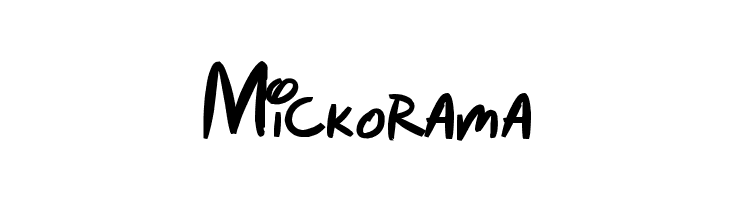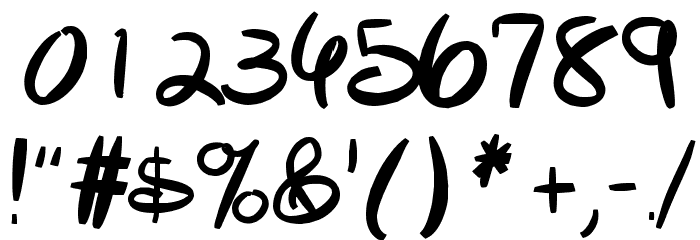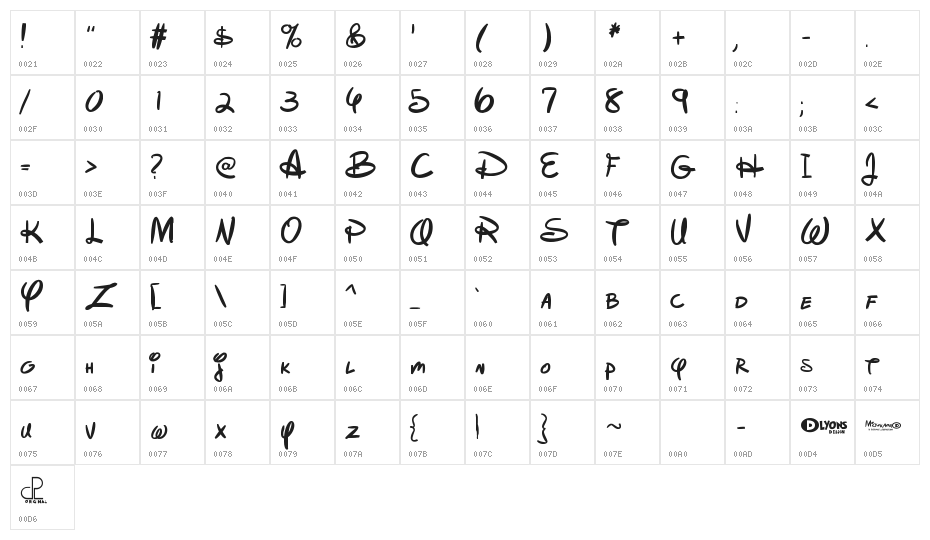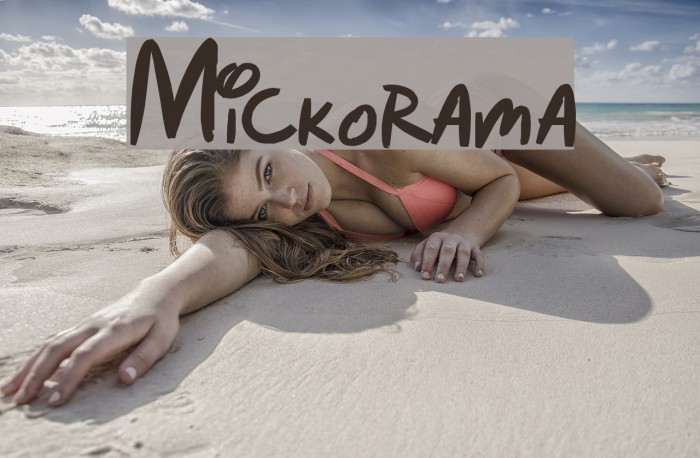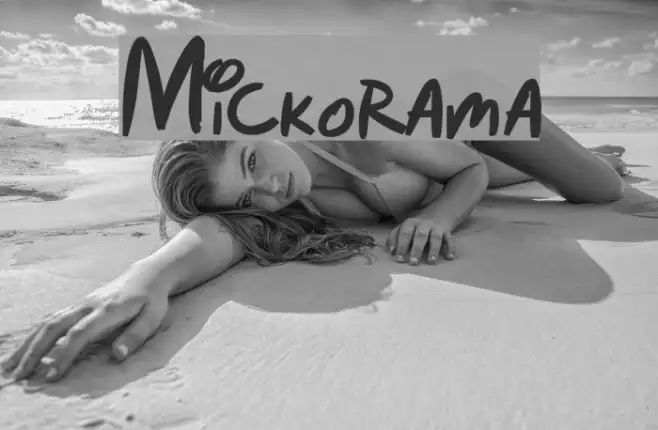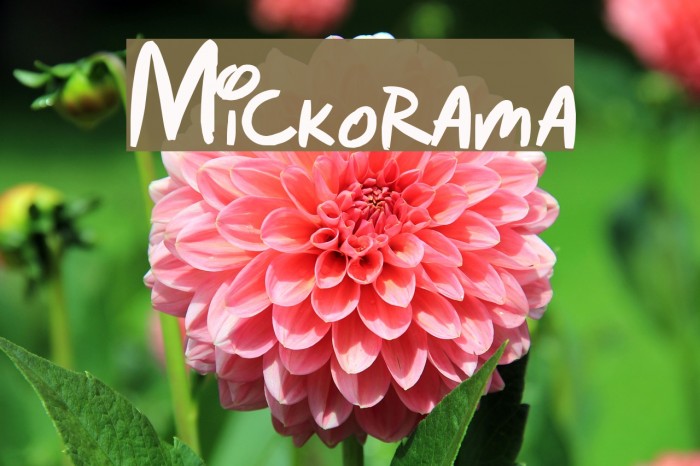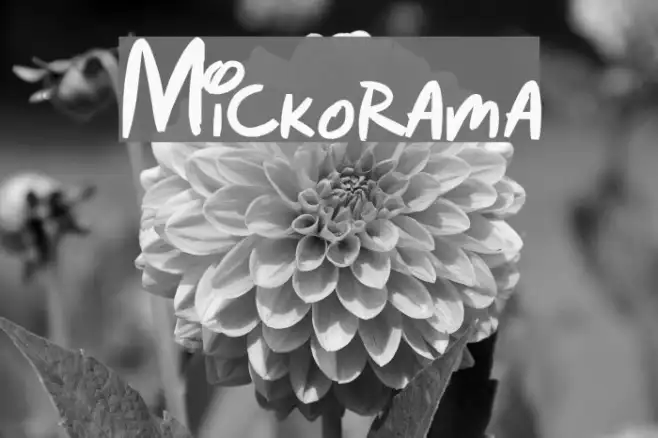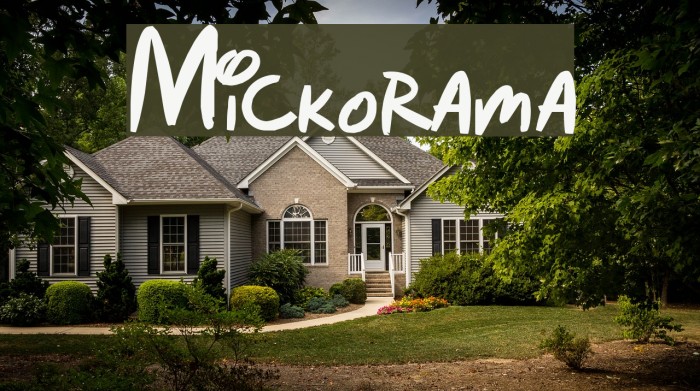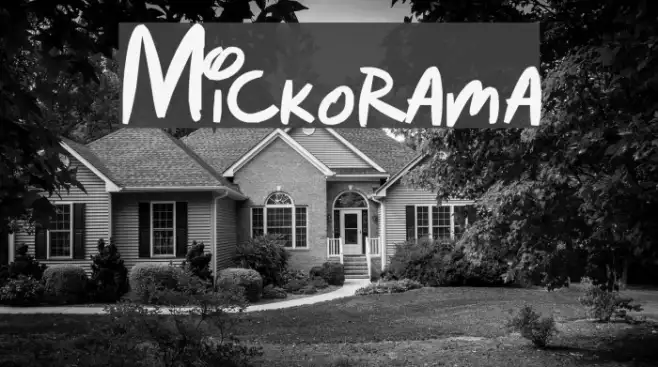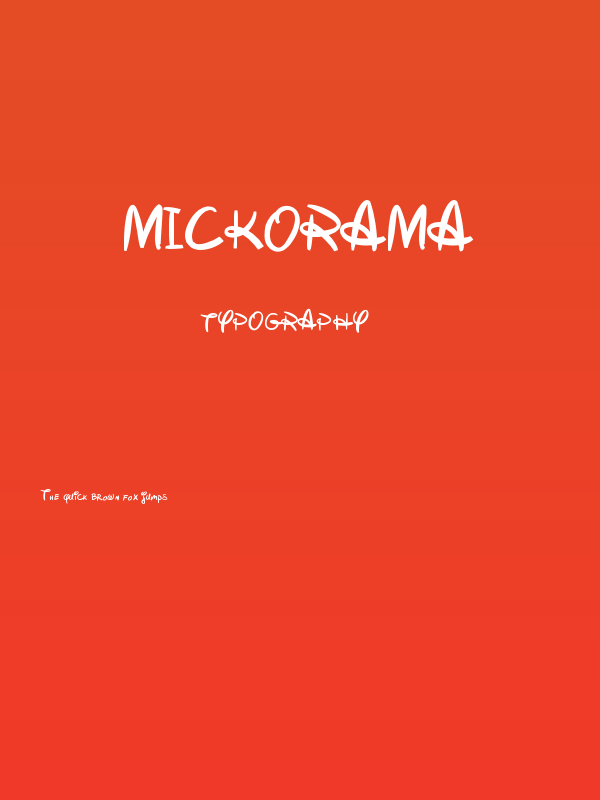
Mickorama Font
Mickorama Description
This font exhibits a playful and energetic handwritten style, characterized by its bold and expressive strokes. The letters are crafted with a sense of spontaneity, featuring irregular shapes and varying line thicknesses that add a dynamic and informal feel. The uppercase and lowercase letters maintain a consistent style, with some letters showing unique flourishes and loops, particularly noticeable in characters like 'G', 'Q', and 'g'. The numerals are equally lively, with a slightly exaggerated curvature that complements the overall aesthetic. Special characters are integrated seamlessly, maintaining the font's whimsical and artistic nature.
| Proposed Projects | Ideal for creative projects such as greeting cards, posters, children's books, and branding that requires a fun and informal touch. |